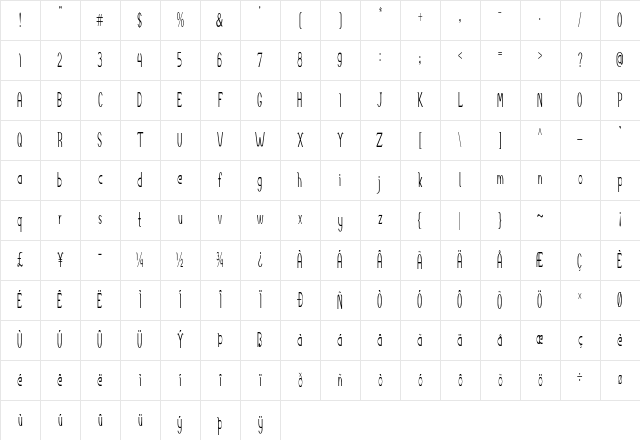
Accordion Extra-condensed Regular
Style: Extra-condensed Regular
Accordion Family
Accordion Extra-condensed Regular
Complete Accordion Extra-condensed Regular glyph index. Displaying only characters natively supported by Accordion Extra-condensed Regular font.
Design Context for Accordion
Accordion is a composed and adaptable typeface that performs quietly and consistently across a wide range of design contexts. Its narrow stance lets it pack a punch even in space-constrained designs.